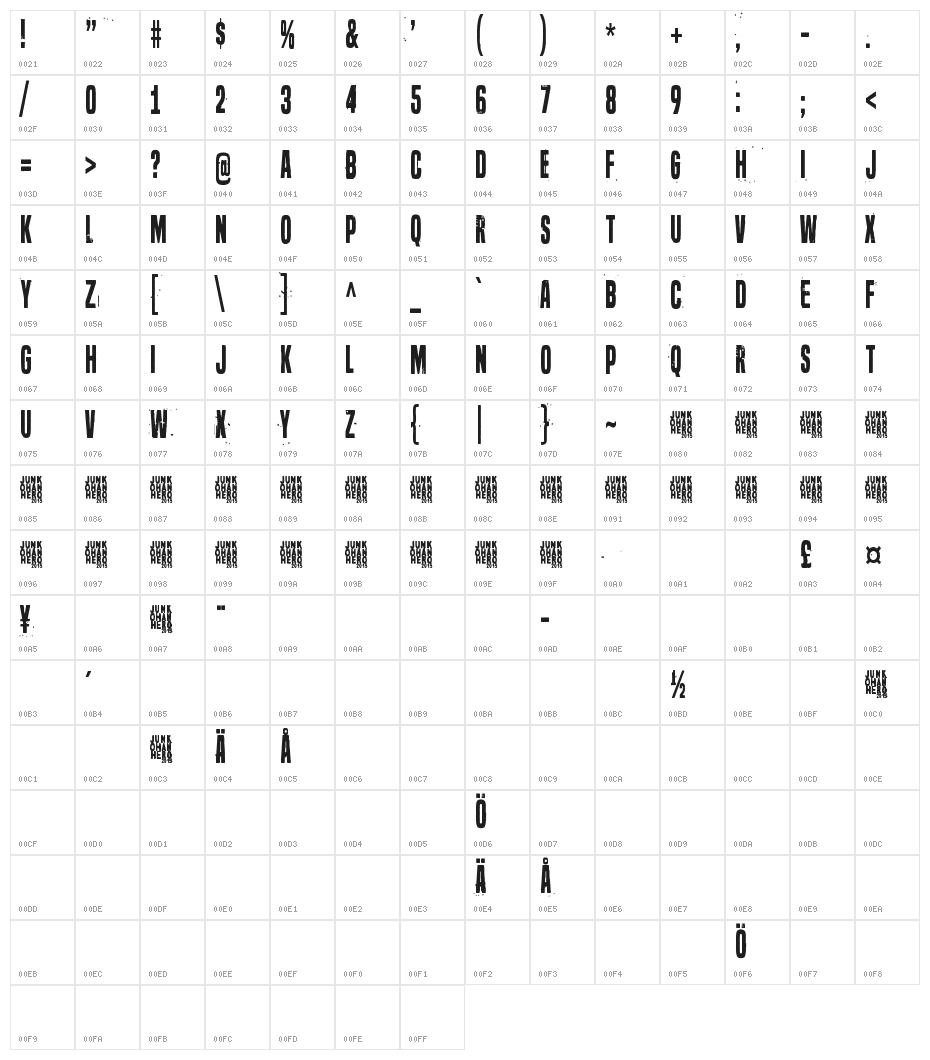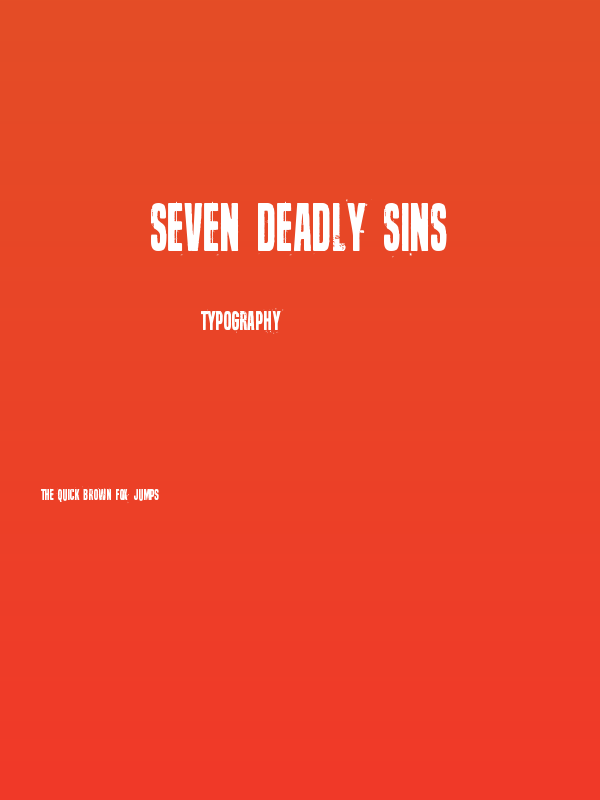
Seven deadly sins Font
This font features a bold and distressed style, characterized by its rough, textured appearance that gives it a rugged, vintage feel. The uppercase letters are prominent and impactful, making it ideal for attention-grabbing designs. The numbers and special characters maintain the same distressed aesthetic, ensuring consistency across all elements. The font's boldness and texture make it suitable for projects that require a strong, gritty look, such as posters, album covers, or branding for edgy products.
Overall StyleVintage
Proposed ProjectsIdeal for posters, album covers, branding for edgy products, and any design needing a strong, gritty look.